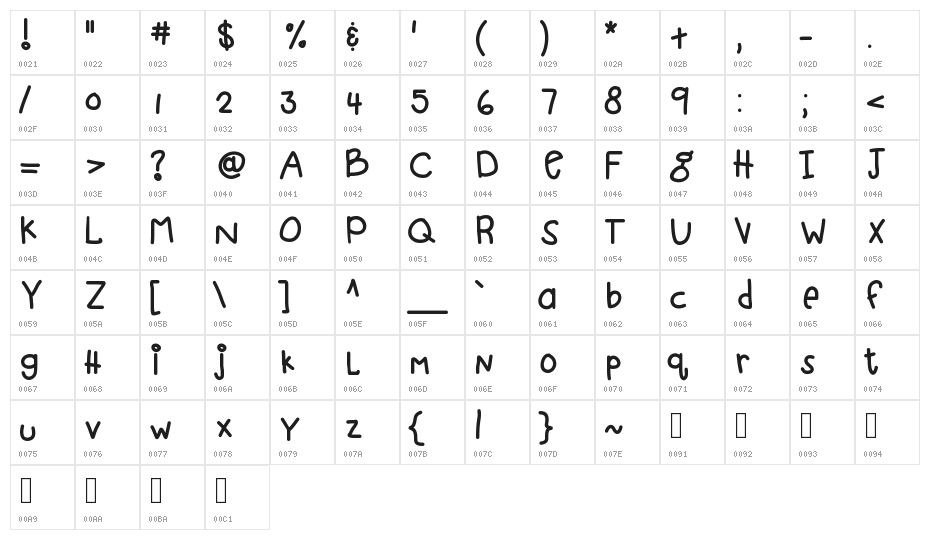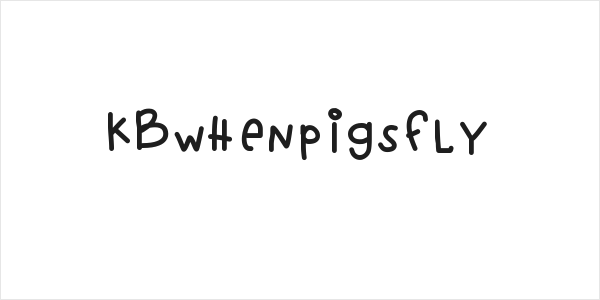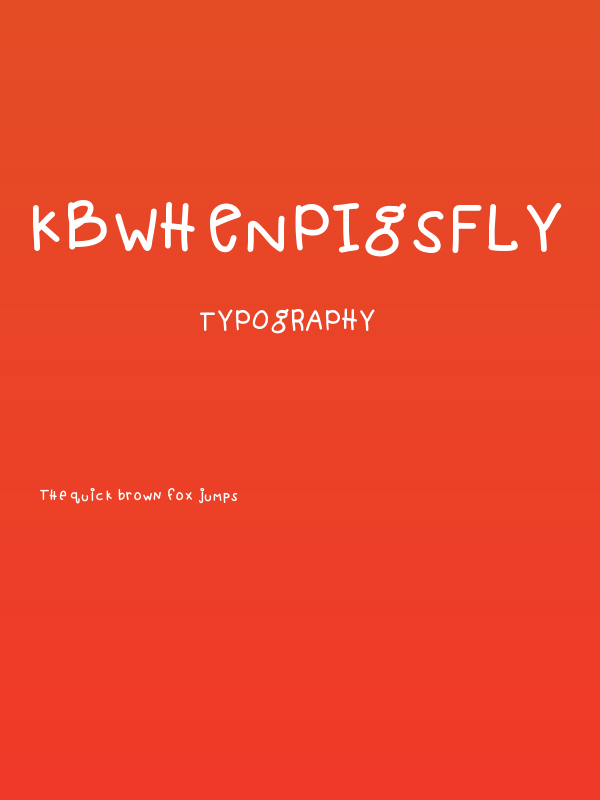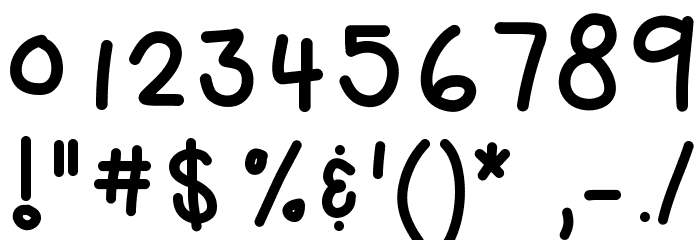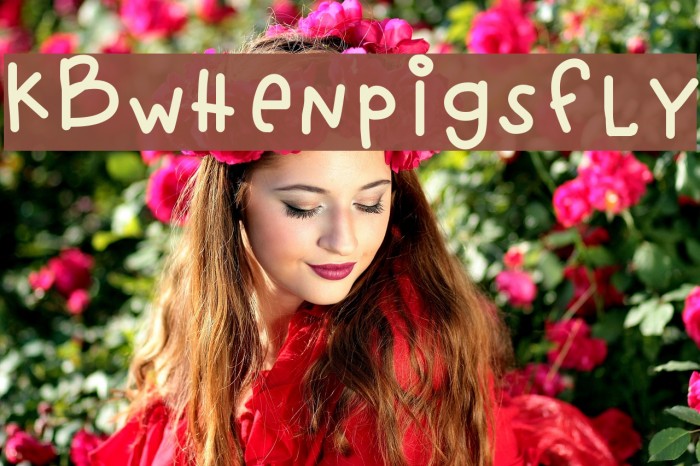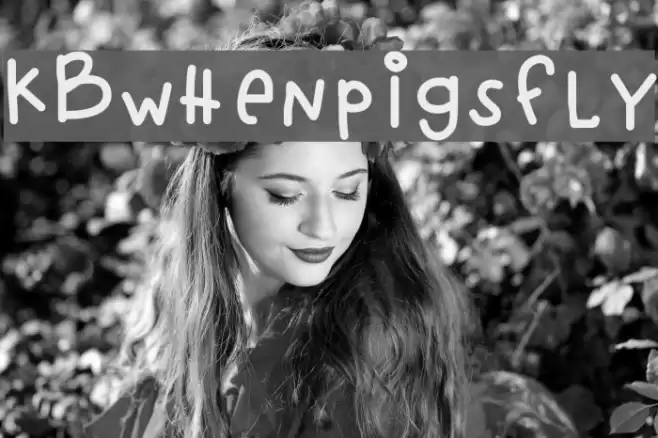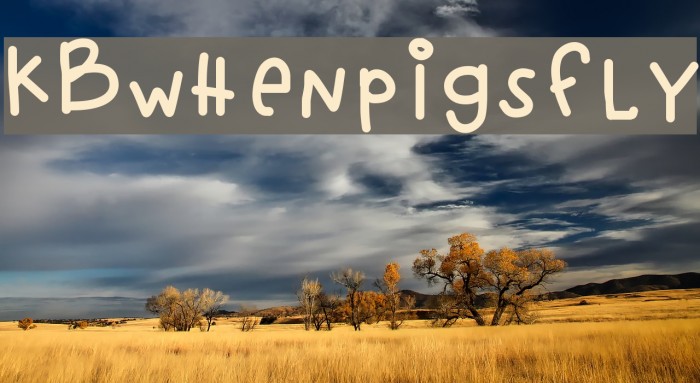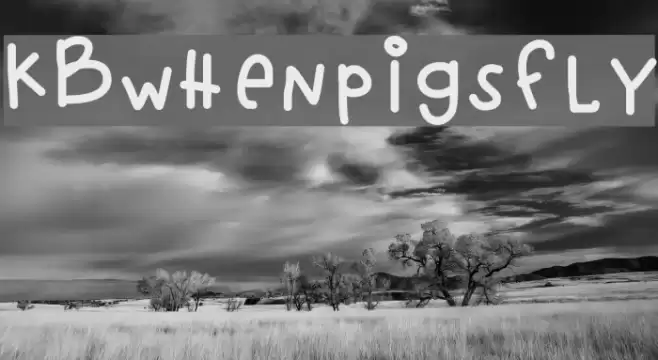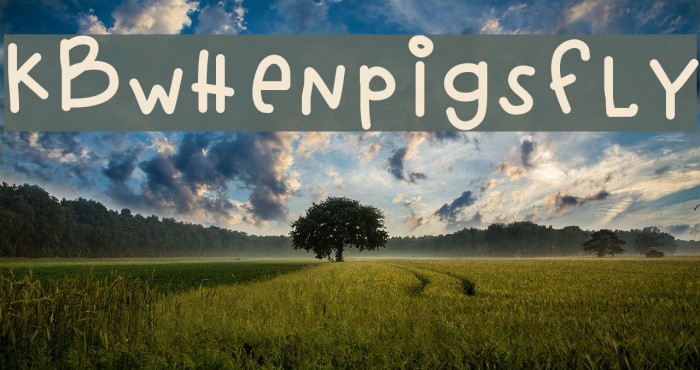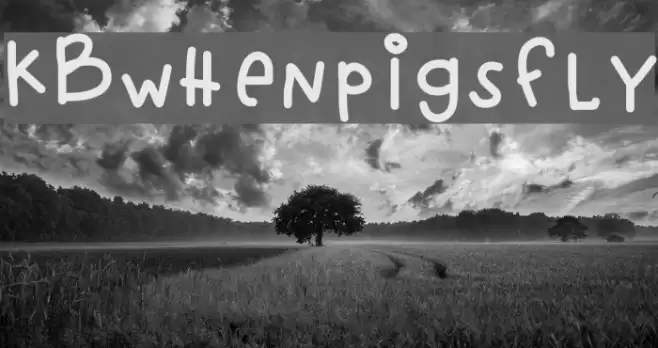
KBwhenpigsfly Font
KBwhenpigsfly Description
This playful and whimsical font features a handwritten style with a casual and informal appearance. The characters are slightly irregular, adding a sense of charm and personality. The strokes are rounded and smooth, giving it a friendly and approachable feel. The uppercase and lowercase letters maintain a consistent style, with the lowercase letters being slightly smaller and more compact. The numbers and special characters are designed to match the overall aesthetic, ensuring a cohesive look across all text elements. This font is perfect for projects that require a fun and lighthearted touch.
| Overall Style | Playful |
| Use Case | Headlines, Logos, Informal Text |
| Proposed Projects | Ideal for children's books, greeting cards, playful branding, and casual invitations. |